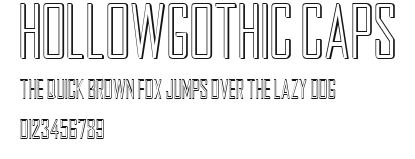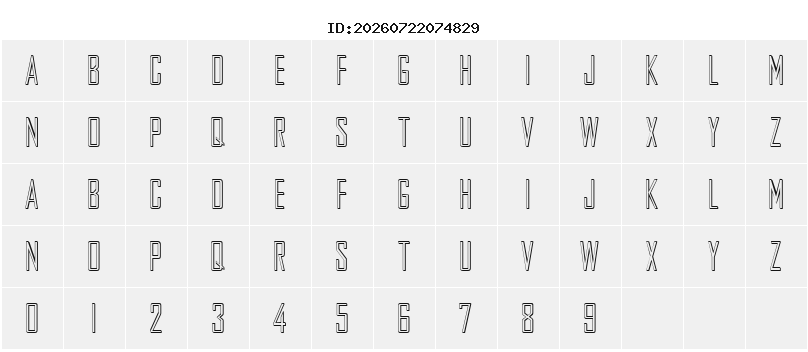
• Font Name: HollowGothic Caps
• Full Font Name: HollowGothic Caps Medium
About HollowGothic Caps.ttf
HollowGothic Caps.ttf is a modern, elegant sans-serif font designed for ultimate readability and visual harmony. Perfect for branding, headlines, web design, and print materials.